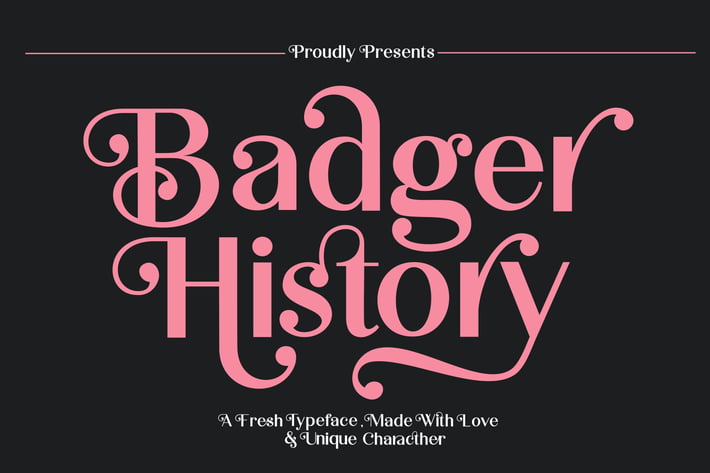
Badger History Typeface
Introducing Badger History Sans Serif Display Font, this typeface design gives a clean and modern appearance with retro tones.
Stylistic alternates help add variety when needed. This font is well suited as both a workhorse text and display font for branding, advertising, packaging, headlines, magazines, websites, logo designs, and more.
Badger History Font Features:
- Uppercase And Lowercase
- Alternates And Ligatures
- Accented characters